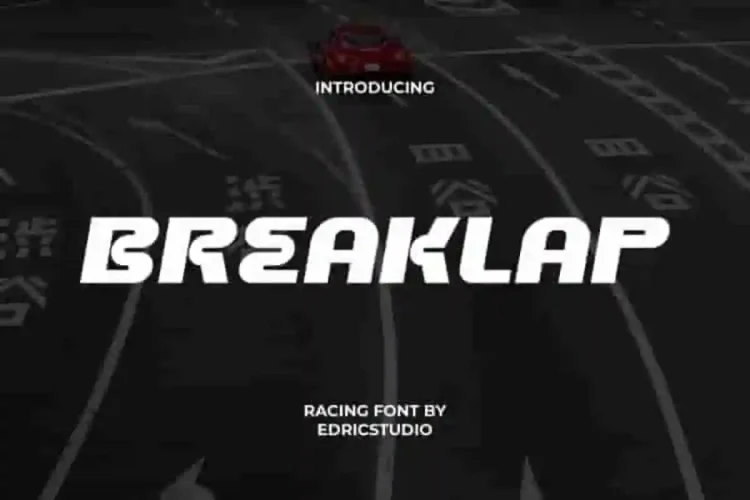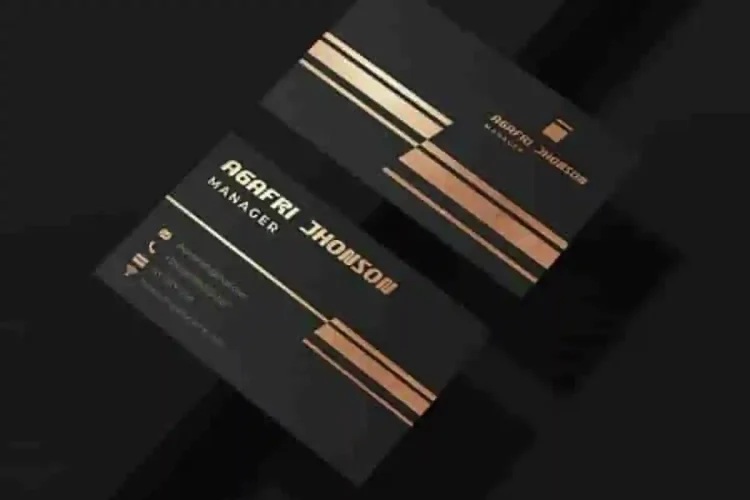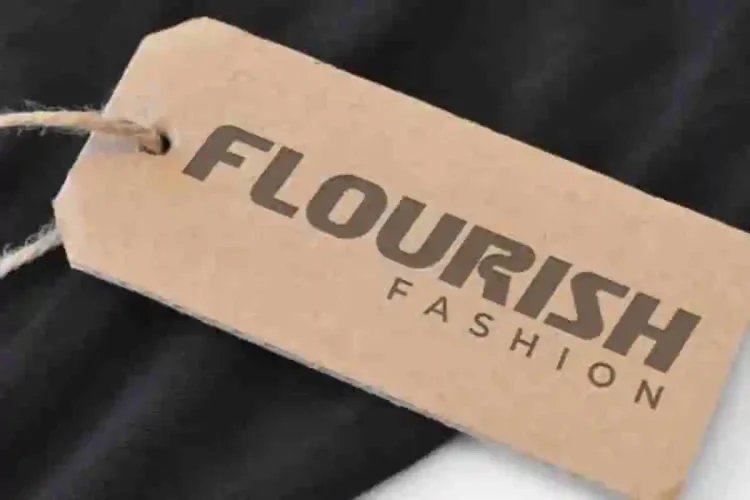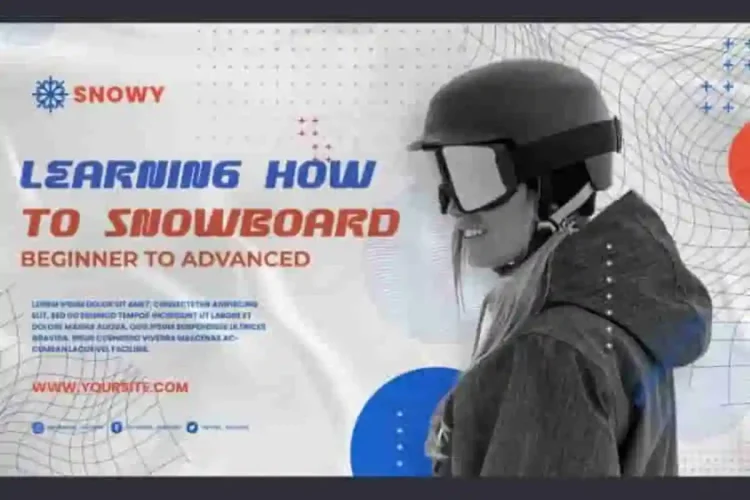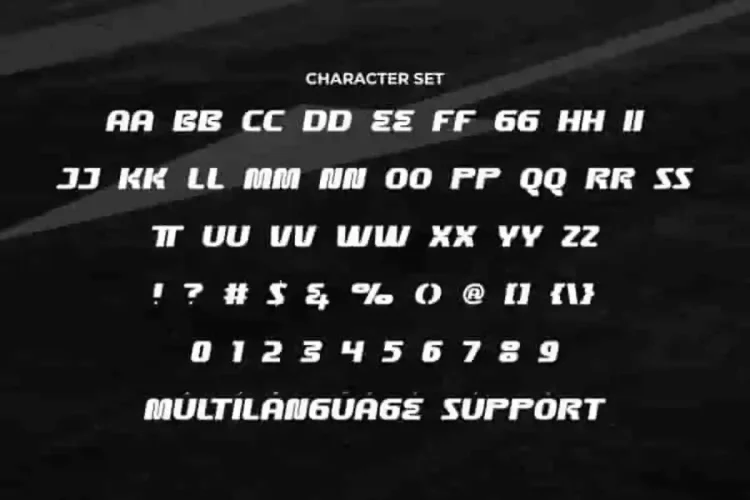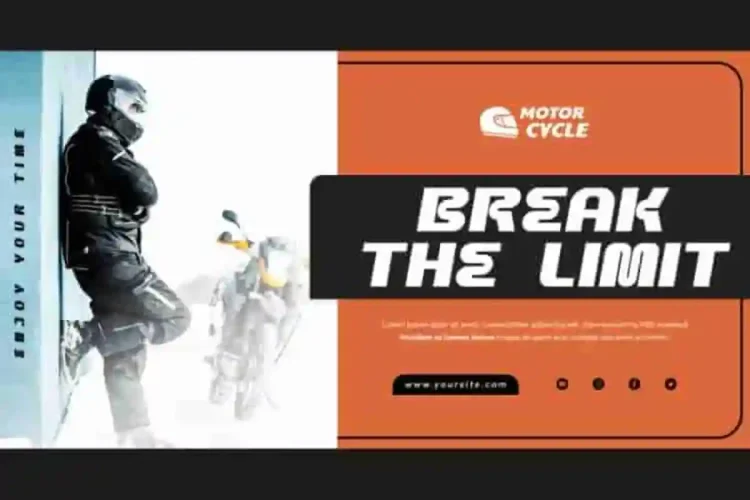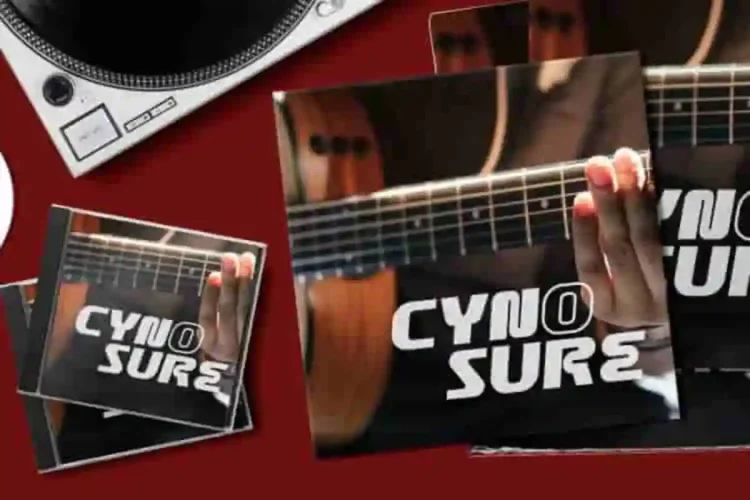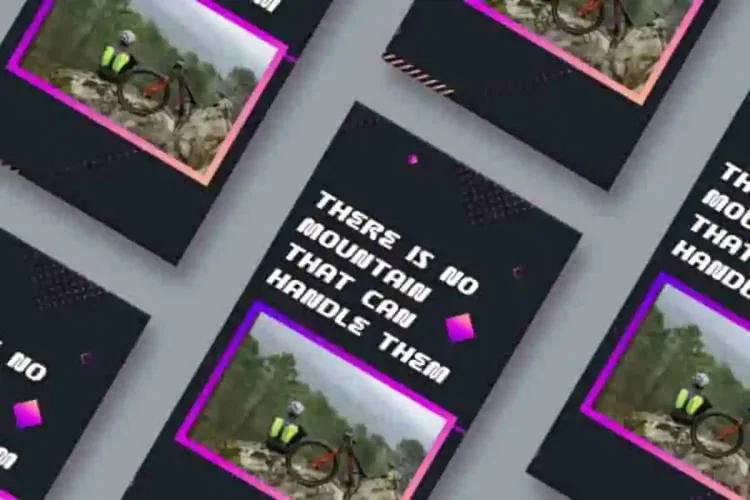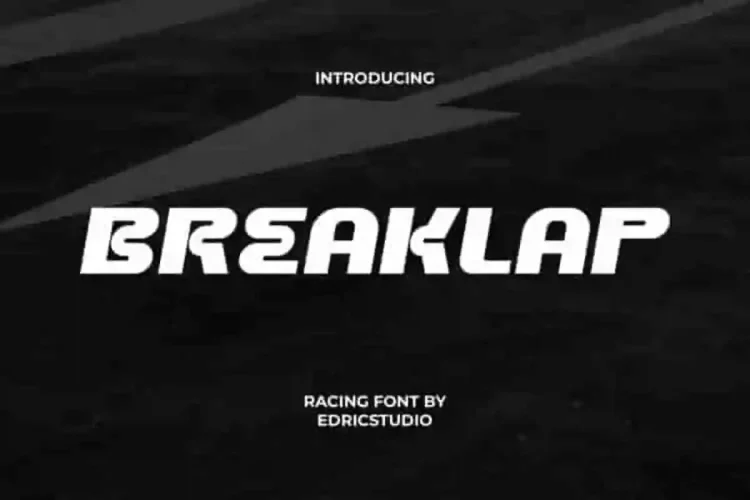
Breaklap Comic Font a bold and unique racing display typeface crafted to embody the spirit of speed, power, and modern style. The unique font style will make your design look modern and futuristic. Perfect for banners, billboard, blog, brand logo, brochure, business card, covers, flyer, headers, heading, headline, label tag, mockup, poster, stationery, sticker, template, title, website, and more.
Breaklap Comic Display Font Designed in ALL CAPS for maximum impact, Breaklap Font includes uppercase and lowercase variations, numbers, punctuation, and symbols. This font has precision and solidity made more distinct by its attractive curves. Here to transform your creative projects with a dynamic and sporty aesthetic.
Breaklap Font a playful typeface with unique decoration in each character. Combine different characters for a bespoke, handcrafted feel. It’s tested to work well in the Adobe Apps (Illustrator, Adobe InDesign, Adobe Photoshop) even work on Microsoft Word. All of these characters are available through the glyph panel, moreover each letter has its own unicode (PUA) so you can access all the characters easily.